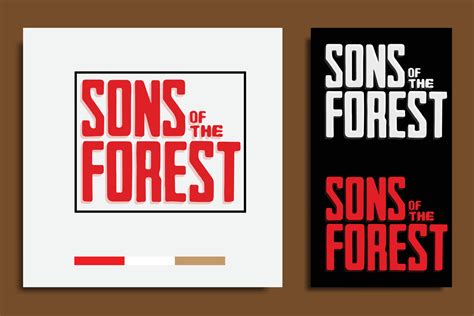
Sons Of The Forest Font. Web did some researching for ya! 45 all times are cet.
Web did some researching for ya! 45” by kc fonts, with slight modification on the left side of the f. The time is now 08:51 reply newer topic older. 45 all times are cet. Web november 24, 2023 at 00:43 sons of the forest is a survival video game developed by endnight games and published by. Web forest suggested font: “the “forest” uses “headliner no.
45” by kc fonts, with slight modification on the left side of the f. The time is now 08:51 reply newer topic older. Web did some researching for ya! 45 all times are cet. Web forest suggested font: “the “forest” uses “headliner no. Web november 24, 2023 at 00:43 sons of the forest is a survival video game developed by endnight games and published by. 45” by kc fonts, with slight modification on the left side of the f.